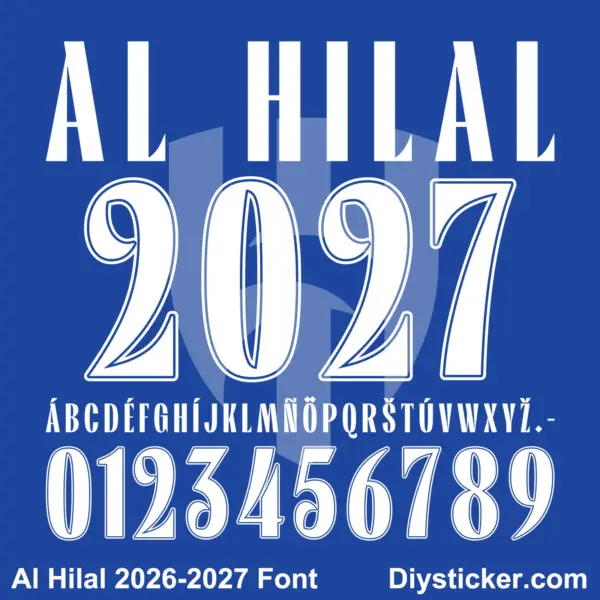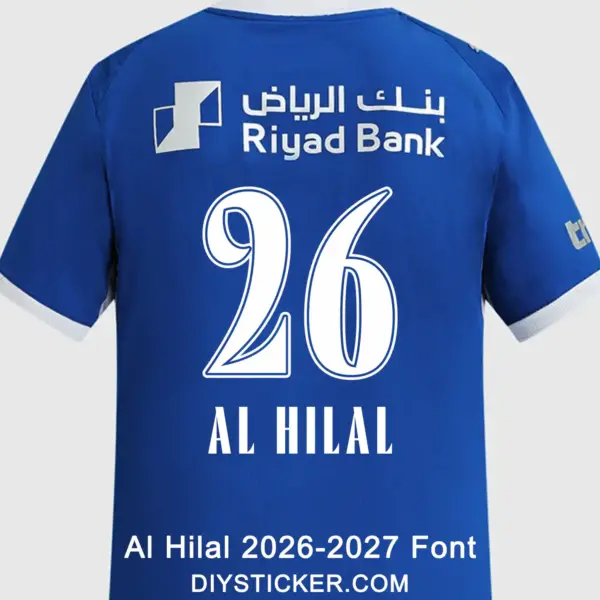
Equip your workshop floor with the verified Al Hilal 2026-2027 font master file bundle, engineered specifically for custom uniform printers, sports apparel shops, and football jersey collectors. This premium digital asset delivers a perfect recreation of the high-contrast serif letterforms, elegant curved numbers, and distinct inline outlines deployed by Al-Za’eem. Bypass the time-consuming process of manually tracking low-fidelity photos—our production-ready assets provide installable desktop system typefaces and clean cutting vectors for immediate download right after checkout.
Club-Accurate Details: Captures the unique condensed serif letterforms, smooth internal inline paths, and refined character tracking worn on the pitch.
True Replica Detailing: Every asset accurately maps the unique character tracking, elegant serif stems, and precise inner inline cuts required for collector-grade apparel customization.